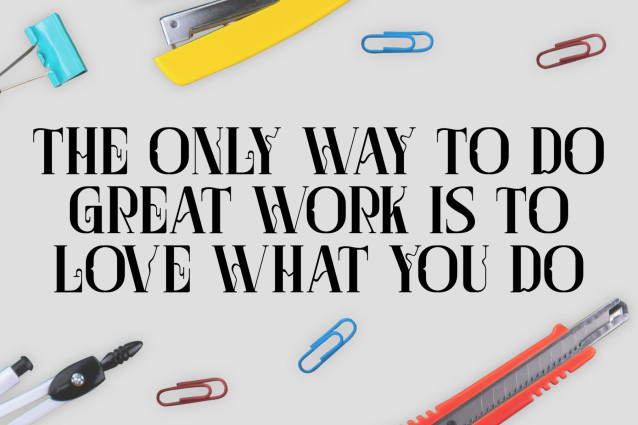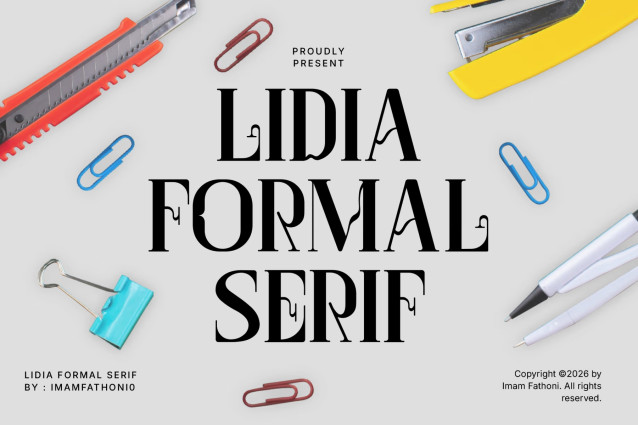
Combine sharp editorial structure with delicate artistic flourishes using Lidia! Designed as an elegant high-contrast serif font, it features sleek vertical stems, crisp high-waisted proportions, and subtle curling terminal accents inside each letterform. Its refined yet creative character gives titles, branding, and stationery a chic modern edge.
Ideal for boutique brand logos, editorial magazine covers, chic product packaging, luxury office stationery, poster headlines, fashion graphics, and custom Cricut or Silhouette craft SVG designs!